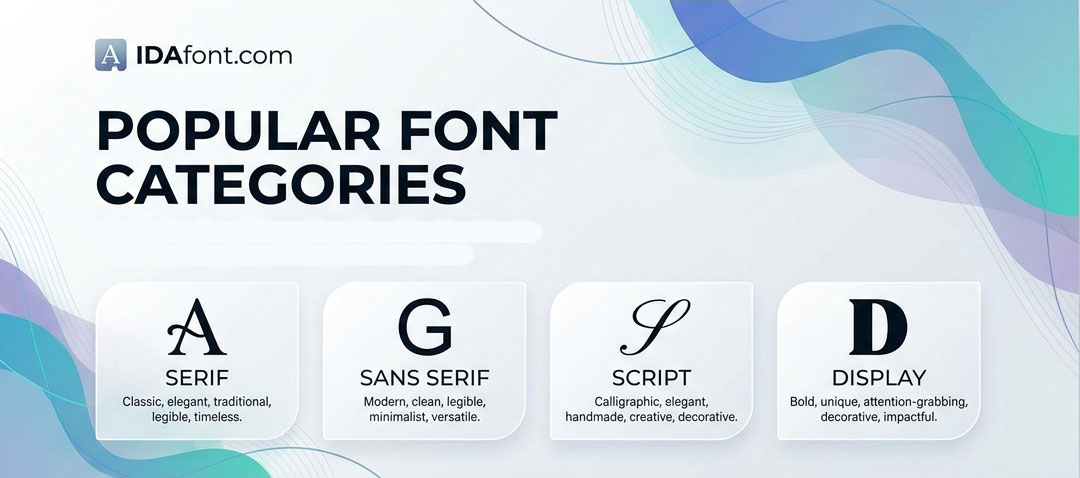
Typography acts as the silent architecture of digital consciousness, where font categories serve as the structural blueprints for human perception and brand resonance. Serif typefaces, distinguished by their elegant terminal strokes or "feet," function as the anchors of heritage, channeling a scholarly authority that enhances legibility in long-form narratives.
In the fluid landscapes of modern interfaces, sans-serif fonts strip away these ornamental extensions to prioritize minimalist clarity and high-contrast accessibility, reflecting a streamlined, future-forward aesthetic. The industrial weight of slab serifs bridges the gap between traditional grit and editorial boldness, while display and decorative typography operate as visual exclamation points, sacrificing uniform readability for raw, evocative personality.
A typeface is the specific design of the letters (e.g., Helvetica). A font family is the collection of all variations of that design, including different weights (Light, Regular, Bold) and styles (Italic, Condensed). In web design, "font-family" is also the CSS property used to define which typeface should be used for text.
Serif fonts have small "feet" or strokes at the ends of letters (like Times New Roman); they are traditionally seen as formal, authoritative, and easier to read in printed books. Sans Serif fonts lack these strokes (like Arial); they are viewed as modern, clean, and are generally easier to read on digital screens.
Using too many different fonts creates "visual noise," making the design look cluttered and unprofessional. Limiting your selection ensures brand consistency and helps the user focus on the content. Technically, loading fewer font files also improves your website’s loading speed.
From the rhythmic flow of script fonts to the geometric precision of monospaced glyphs, every typographic classification is less a choice of style and more a calculated manipulation of visual body language, dictating how a message is felt before it is ever truly read.